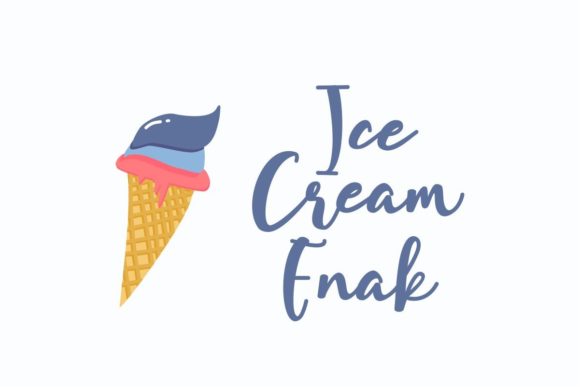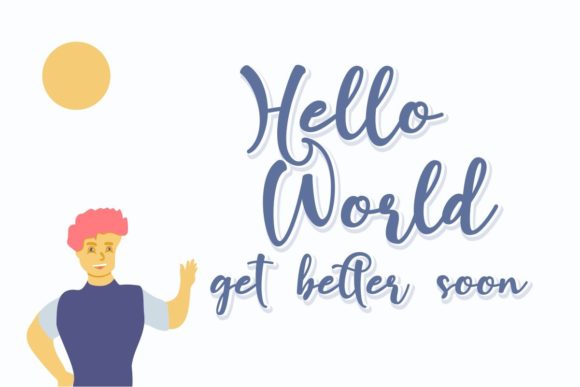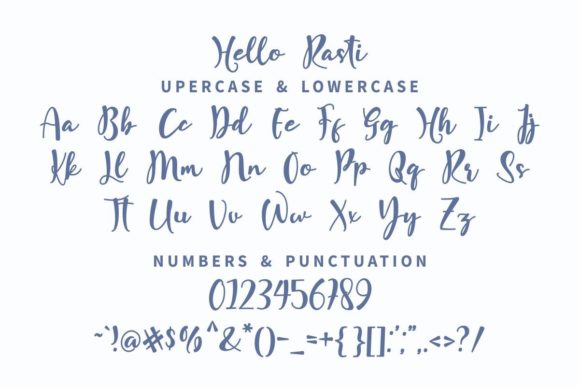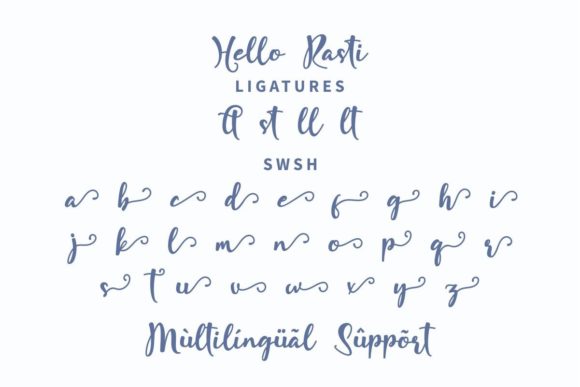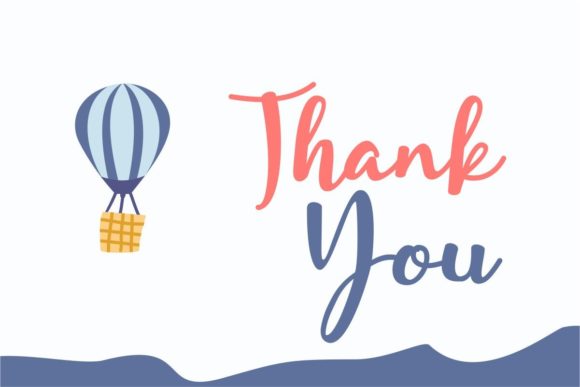
Introduction to Hello Rasti Font
Hello Rasti is a whimsical and sweet paint brushed handwritten font.
This font is PUA encoded which means you can access all of the glyphs and swashes with ease Add it to each of your love letters, wedding invitations or favorite design ideas, and you will be astounded by the outcome.